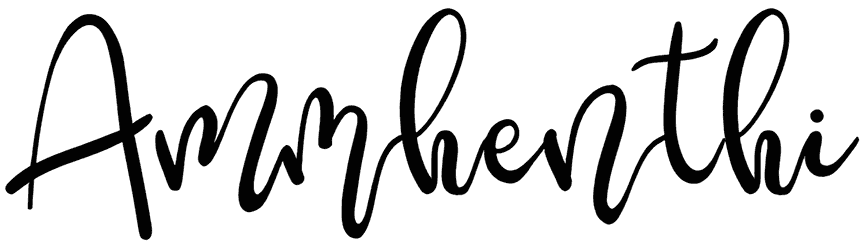
Ammhenthi Font
Elegance and creativity are what you go after in cursive font like Ammhenthi. This dream font creates a refined look with curved and thin lines, which makes it perfect for so many projects like wedding cards, romantic movie titles, drama book covers, flyers, and posters.